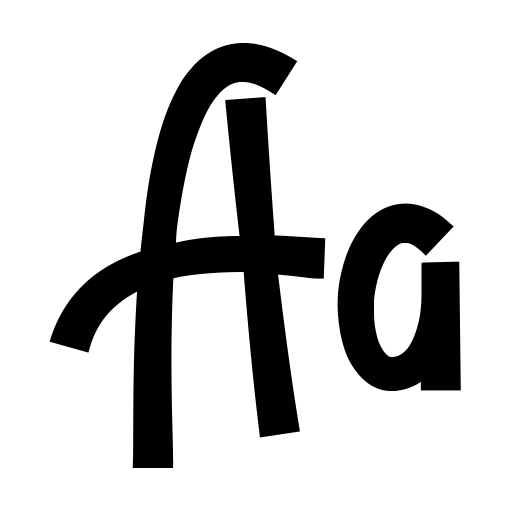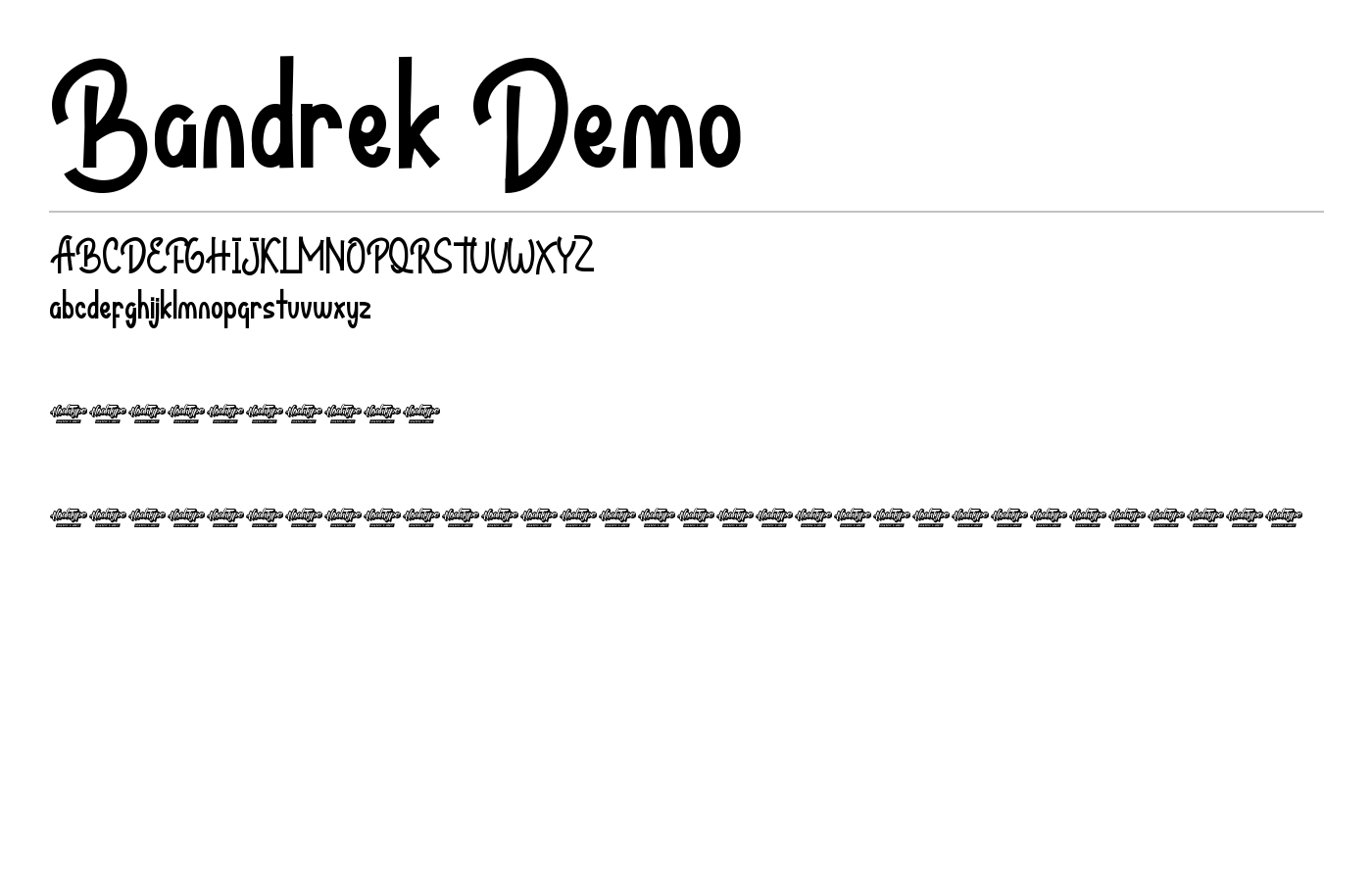
Bandrek Demo is a playful and casual sans serif font with a handwritten feel, featuring smooth, rounded strokes and moderate contrast. Its upright, friendly letterforms include unique quirks like the single-story 'a' and distinctively curled terminals, making it ideal for informal branding, children’s products, or creative projects seeking a warm and approachable vibe. This font shines in headlines, packaging, and fun editorial uses where a lively and engaging personality is desired.
Bandrek Demo Font
About Bandrek Demo Font